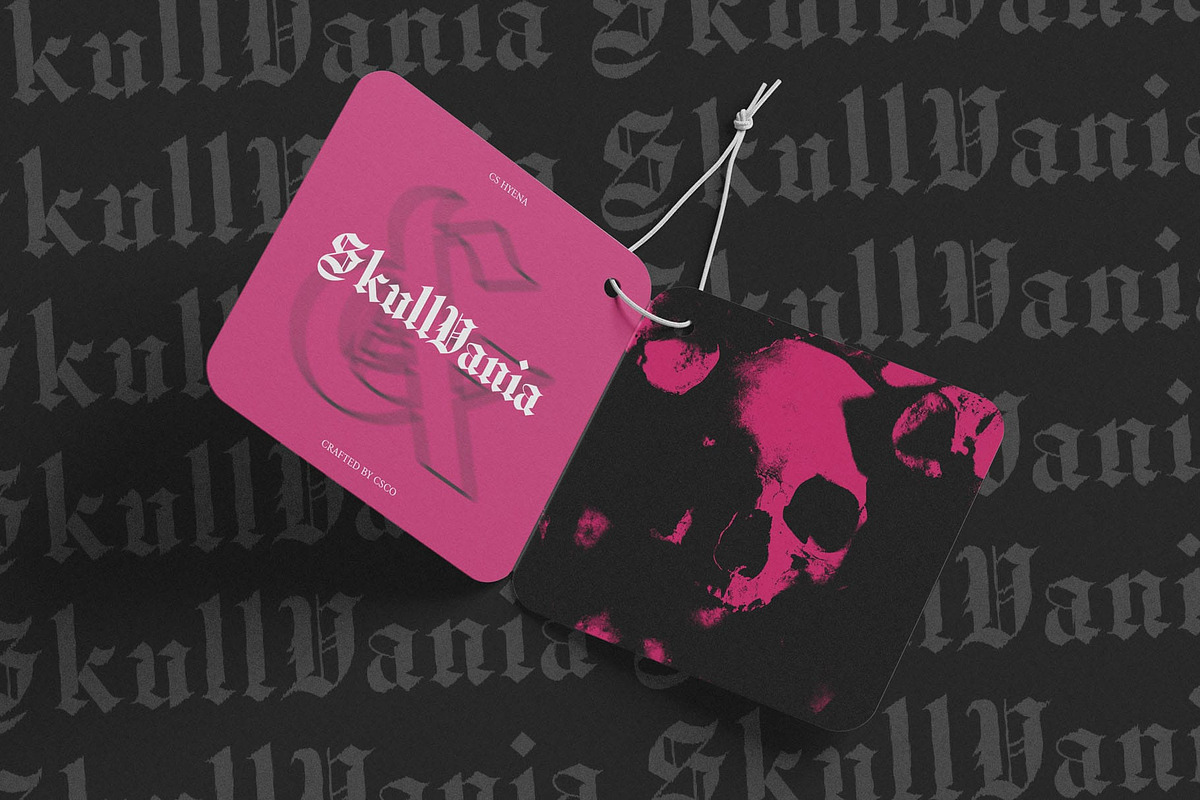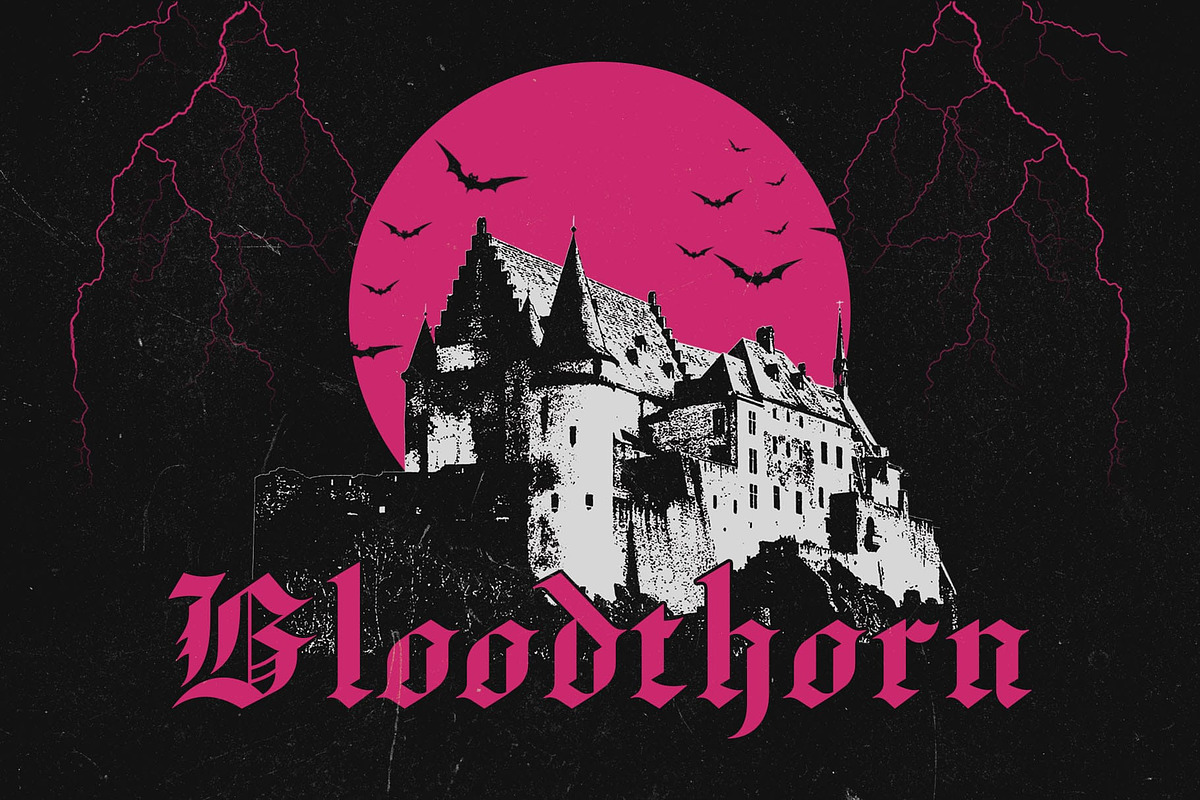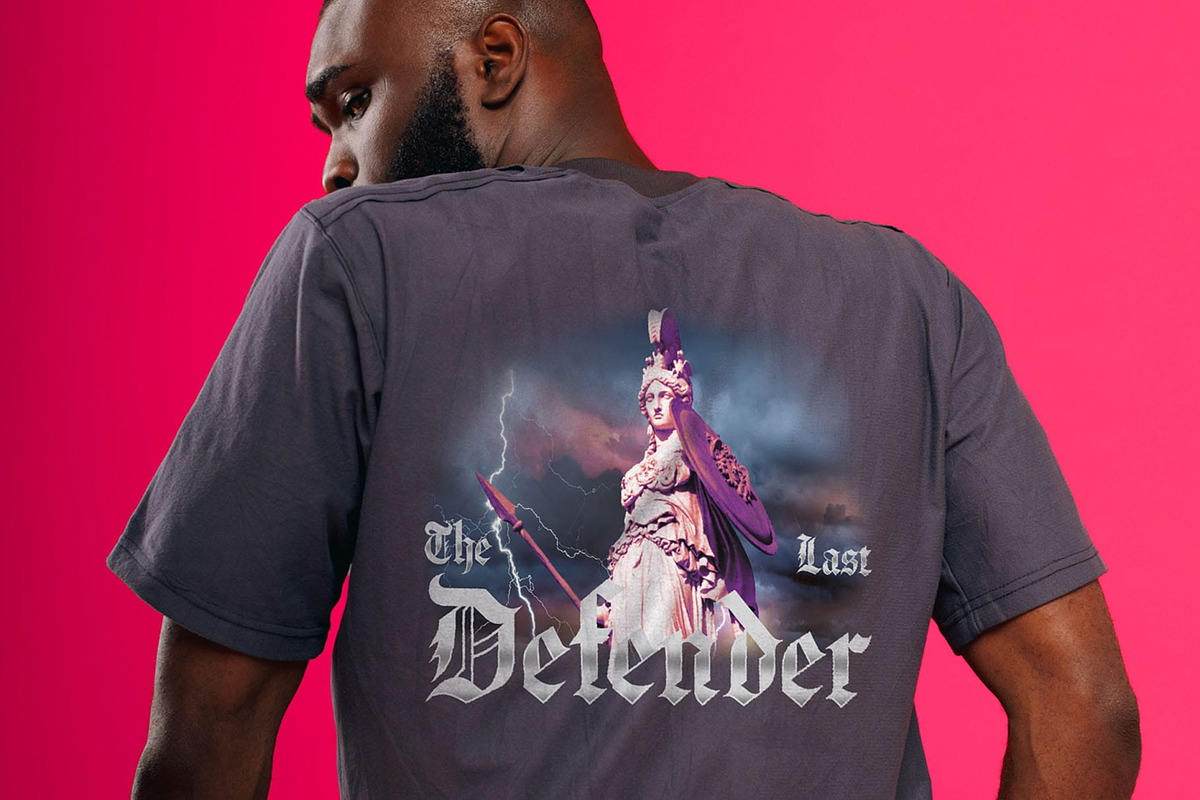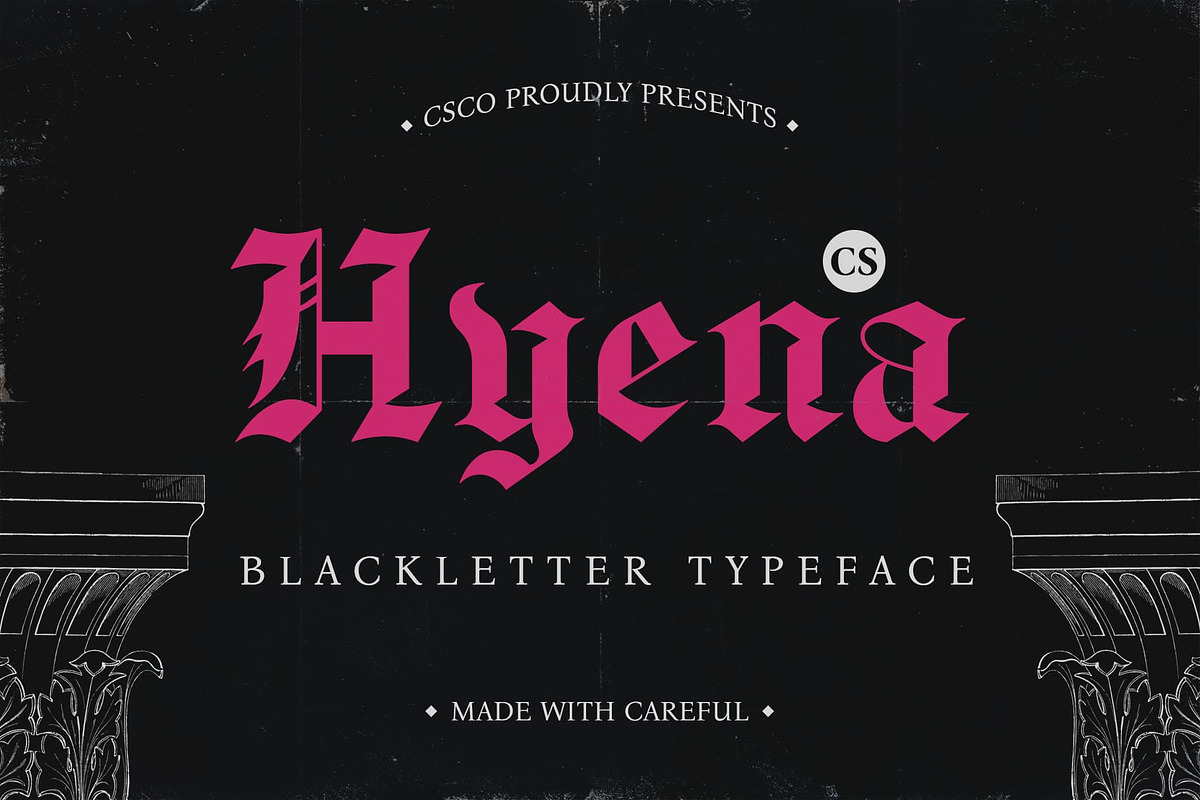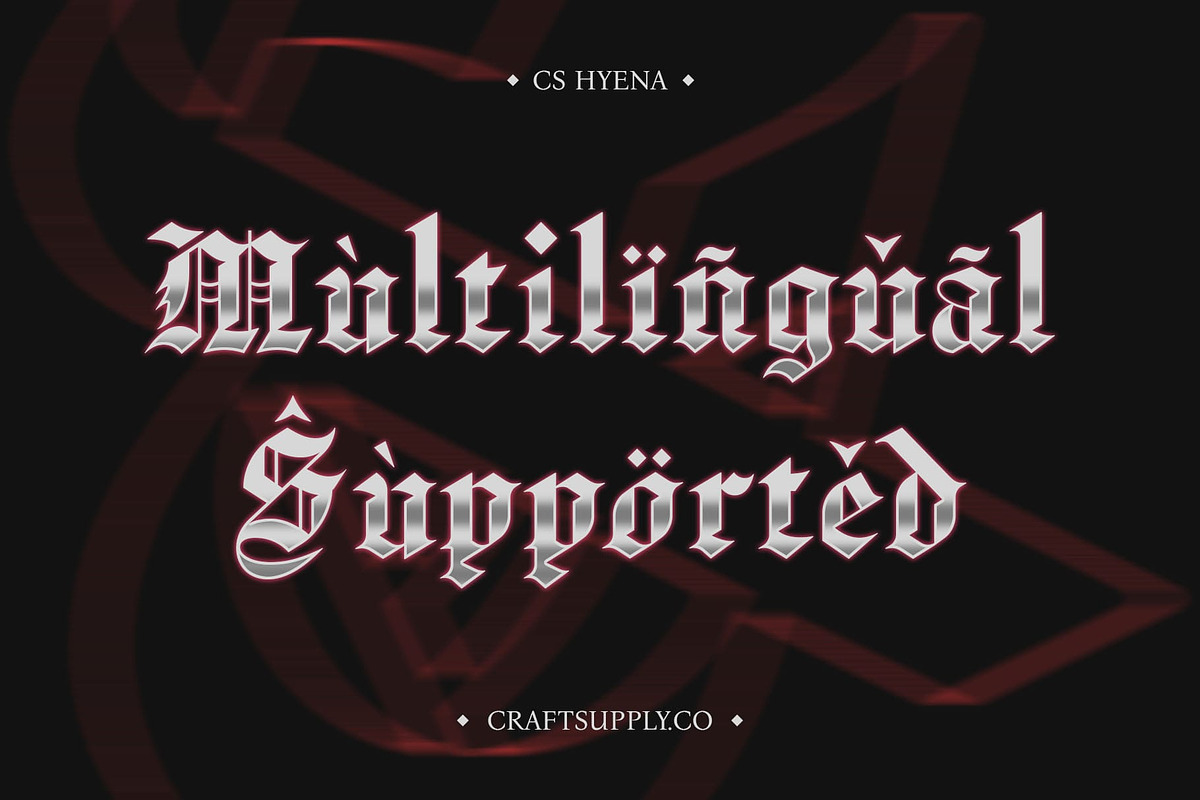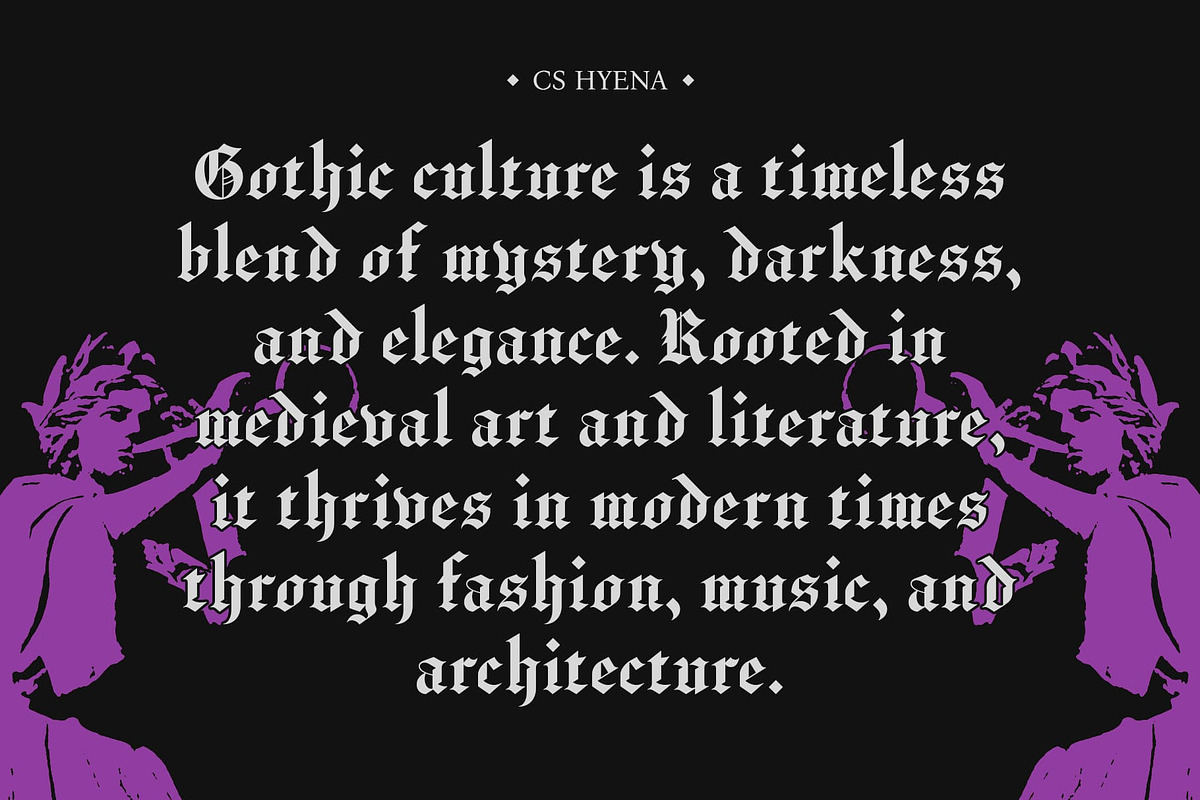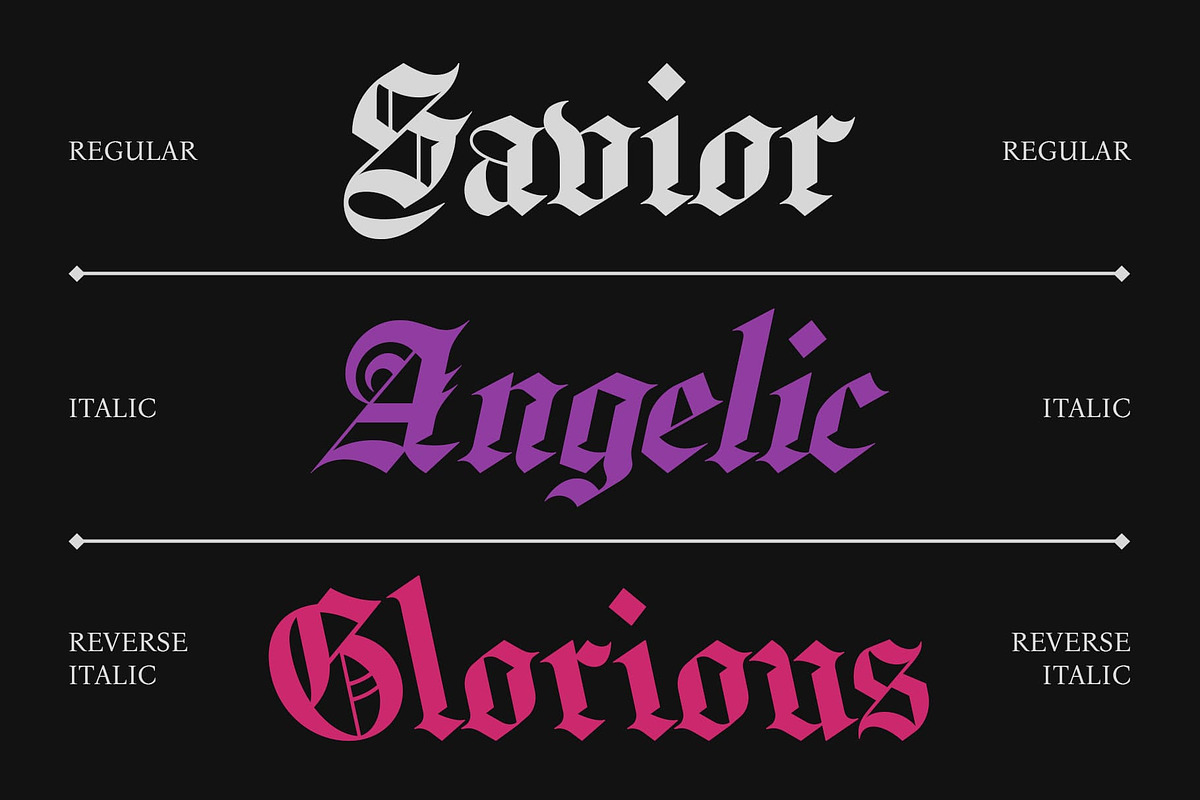
CS Hyena – Old English Font
CS Hyena – Old English Font: A Timeless Blend of History and Elegance
Classic Old English Design with a Modern Twist CS Hyena – Old English Font is a stunning display typeface that draws inspiration from the ornate lettering used in medieval manuscripts and early printed books. This font features intricate, detailed letterforms with sharp angular strokes and flowing, decorative curves, evoking the grandeur and formality of Old English typography. With its Gothic roots, CS Hyena offers a sophisticated and historical aesthetic that is both timeless and refined, perfect for vintage-themed designs or projects that aim to convey a sense of heritage and tradition.
Intricate, Decorative Letterforms with Historical Elegance The letterforms in CS Hyena exhibit a fine balance of sharp edges and sweeping curves, creating a visual complexity that adds sophistication to any design. These elements convey a sense of history and elegance, making the font perfect for use in branding, invitations, and any design project that calls for an elevated, historical look.
Ideal for Vintage and Heritage Branding CS Hyena is an excellent choice for vintage-themed branding, logos, packaging, and promotional materials. The Old English style lends an air of authority and sophistication, making it ideal for projects that require a nod to the past while retaining modern visual appeal. Whether you are designing for historical-themed events, heritage brands, or classical editorial projects.